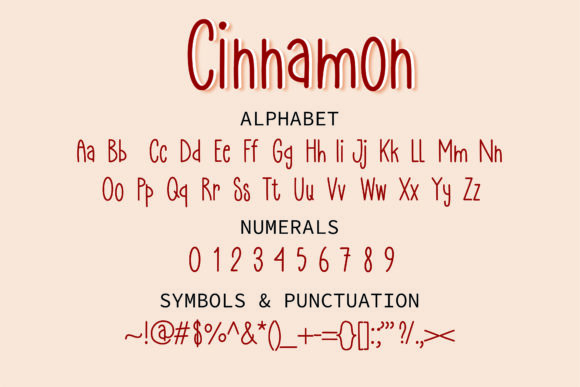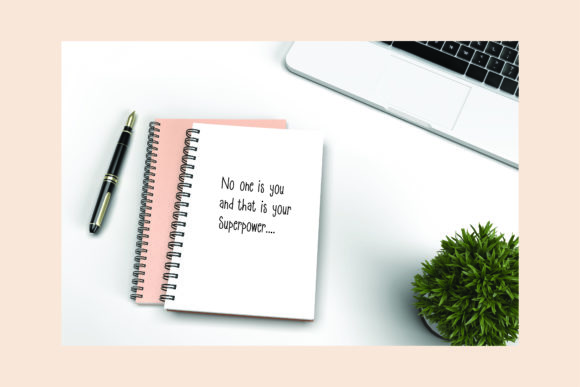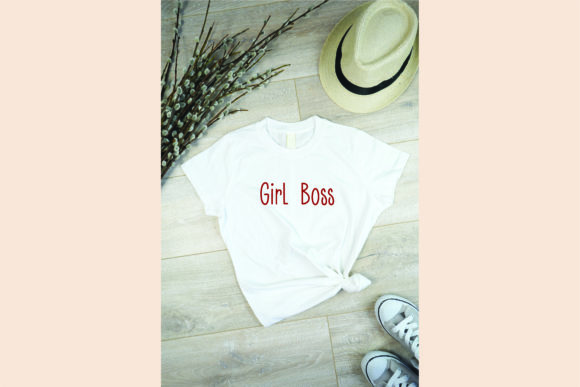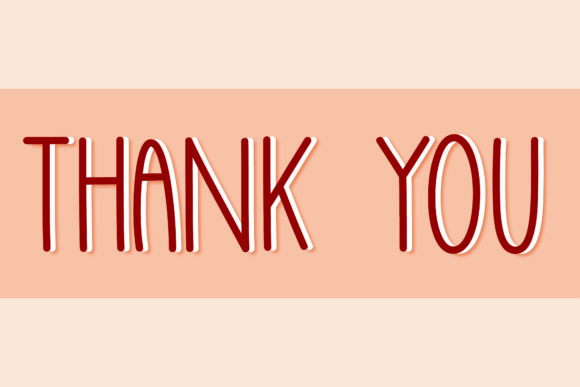
Cinnamon Font: A Cute and Simple Lettered Handwritten Font for Designers and Crafters
Are you a designer or crafter looking for a font that can add a personal and realistic feel to your designs? Look no further than Cinnamon Font! This cute and simple lettered handwritten font is perfect for all chalkboard quotes or teaching materials. Its authentic look will make your designs stand out and give them a unique touch.
What is Cinnamon Font?
Cinnamon Font is a handwritten font that is designed to mimic the look of chalkboard writing. It is a lettered font, which means that each letter is carefully crafted to look like it was written by hand. The font is simple, yet cute and playful, making it perfect for a variety of design projects.
Features of Cinnamon Font
- Handwritten look: Cinnamon Font has a genuine handwritten look that will add a personal touch to your designs.
- Simple and cute: The font is simple, yet cute and playful, making it perfect for a variety of design projects.
- Chalkboard-inspired: The font is inspired by chalkboard writing, making it perfect for chalkboard quotes or teaching materials.
- Lettered font: Each letter is carefully crafted to look like it was written by hand.
Uses for Cinnamon Font
Cinnamon Font is a versatile font that can be used for a variety of design projects. Here are some ideas:
- Chalkboard quotes: Use Cinnamon Font to create beautiful chalkboard quotes that will add a personal touch to any room.
- Teaching materials: The font is perfect for teaching materials, such as worksheets, posters, and presentations.
- Signs and banners: Use Cinnamon Font to create eye-catching signs and banners for events, sales, or promotions.
- Social media graphics: The font is perfect for social media graphics, such as Instagram posts, Facebook posts, and Twitter headers.
- Stationery and cards: Use Cinnamon Font to create beautiful stationery and cards for special occasions.
Why Choose Cinnamon Font?
There are many reasons why you should choose Cinnamon Font for your design projects. Here are a few:
- Unique look: Cinnamon Font has a unique look that will set your designs apart from others.
- Easy to read: The font is easy to read, making it perfect for body text and headings.
- Versatile: Cinnamon Font is a versatile font that can be used for a variety of design projects.
- High-quality: The font is high-quality and will look great in any design project.
Tips for Using Cinnamon Font
Here are some tips for using Cinnamon Font in your design projects:
- Use it with images: Cinnamon Font looks great with images, especially those with a rustic or vintage feel.
- Experiment with colors: The font looks great in a variety of colors, so don’t be afraid to experiment and find the perfect color for your design.
- Use it for headings and titles: Cinnamon Font is perfect for headings and titles, but it can also be used for body text.
- Pair it with other fonts: Cinnamon Font can be paired with other fonts to create a unique and interesting look.
Cinnamon Font is a cute and simple lettered handwritten font that is perfect for designers and crafters. Its authentic look will add a personal and realistic feel to your designs, making it perfect for chalkboard quotes, teaching materials, and more. With its versatility, high-quality, and unique look, Cinnamon Font is a great choice for any design project.